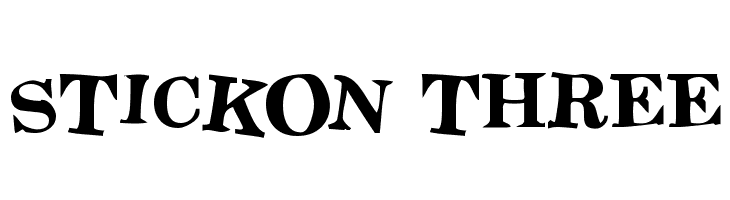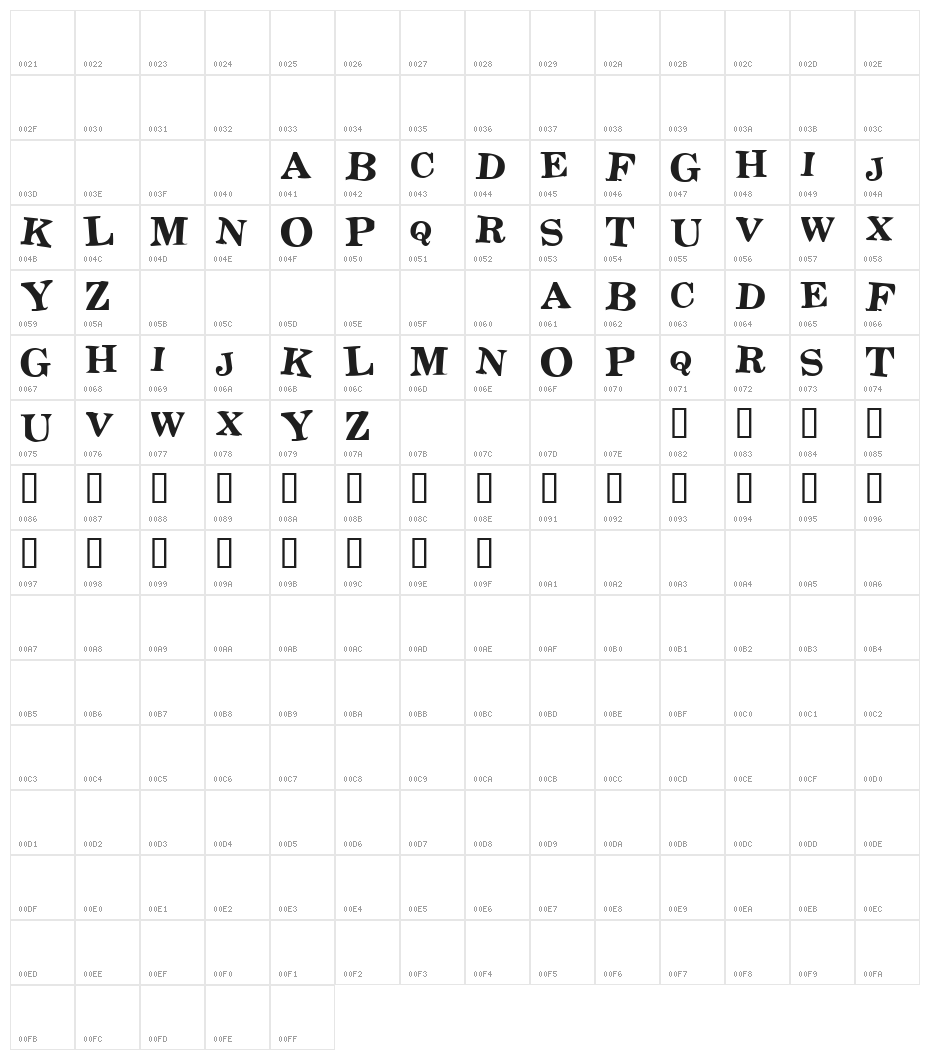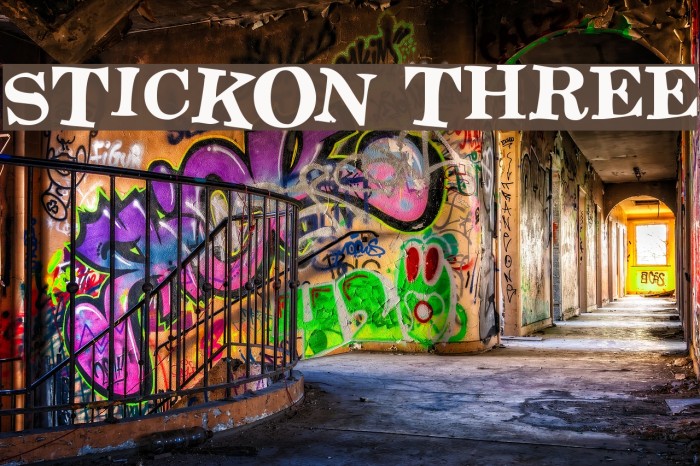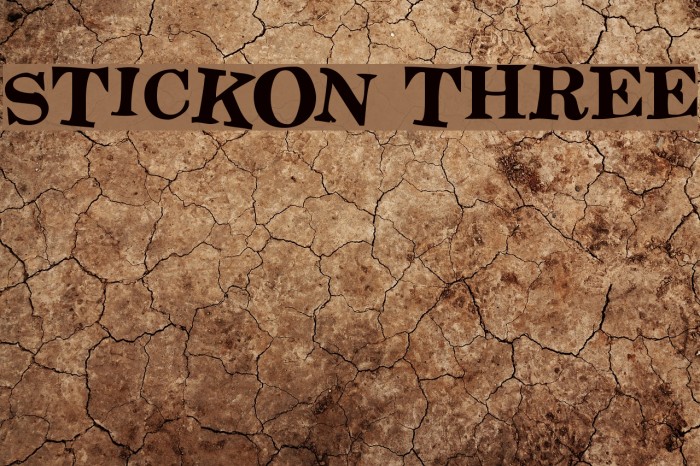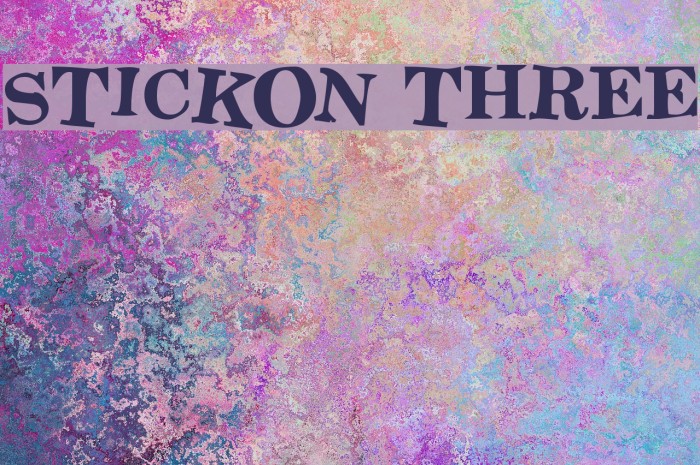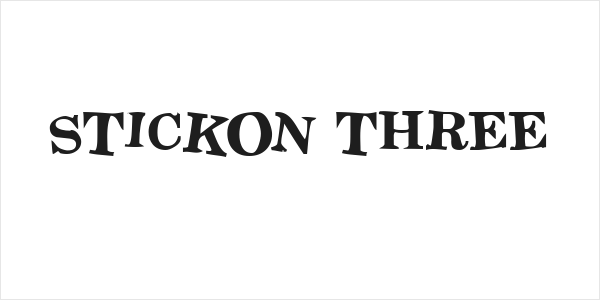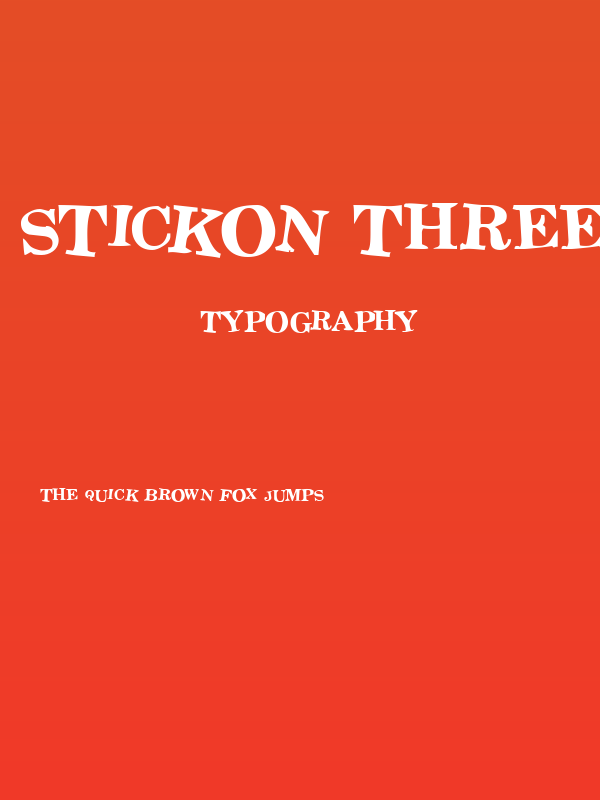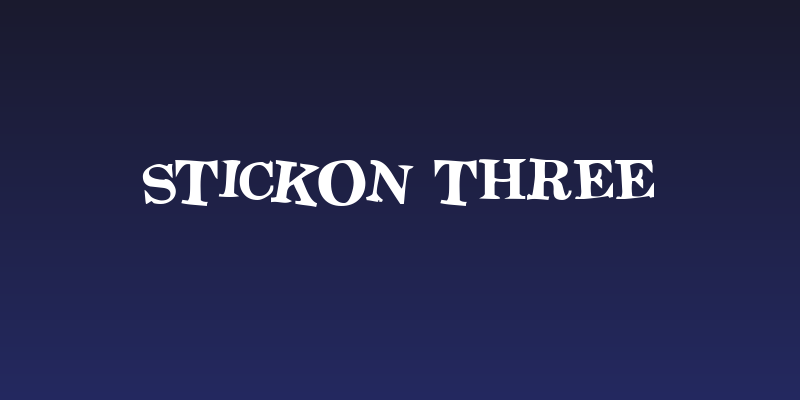
Stickon Three Font
Stickon Three Description
This font features a bold and dynamic style with a playful twist. The letters are characterized by their thick strokes and slightly irregular shapes, giving them a whimsical and energetic appearance. The uppercase letters have a strong presence, while the lowercase letters maintain a consistent style. The font's unique design elements, such as the exaggerated serifs and varying stroke widths, create a sense of movement and liveliness. This makes it an excellent choice for projects that require a bold and eye-catching typeface.
| Overall Style | Playful, Energetic |
| Proposed Projects | Ideal for posters, headlines, branding, and any design needing a bold, playful touch. |